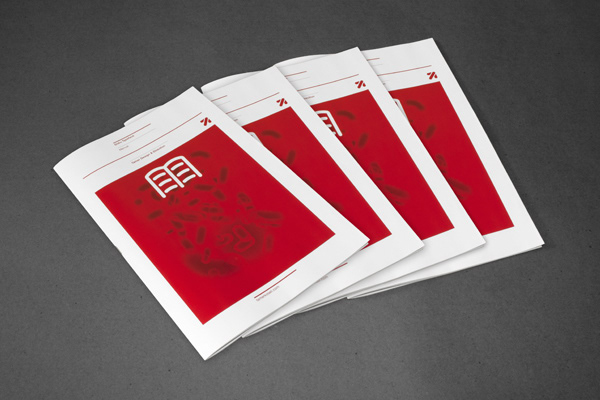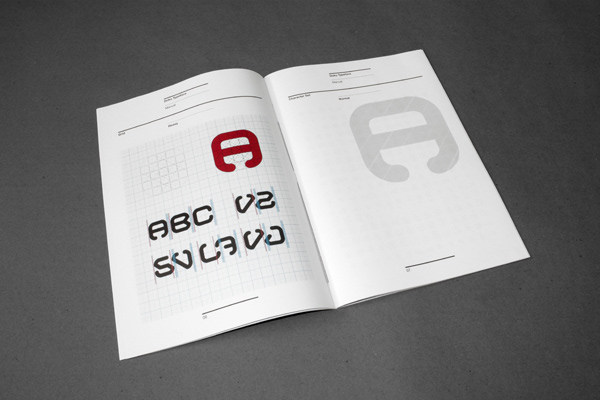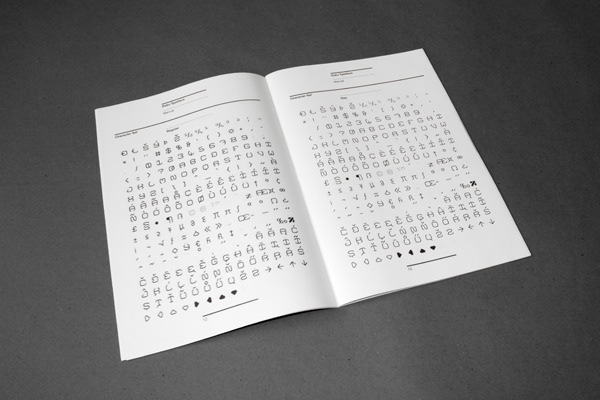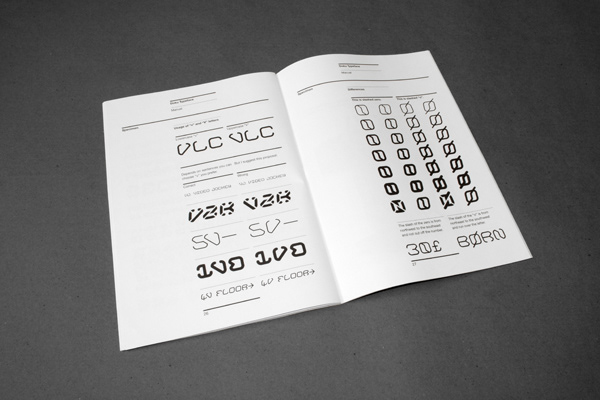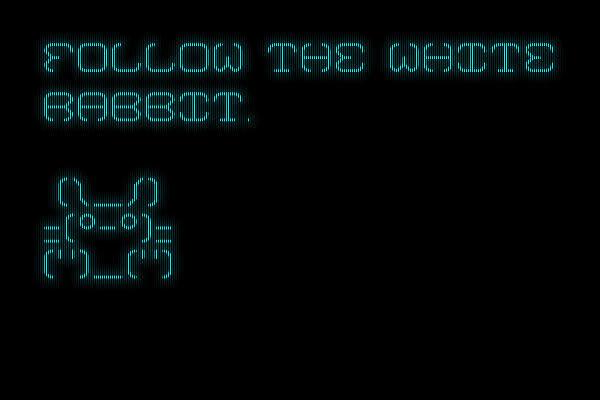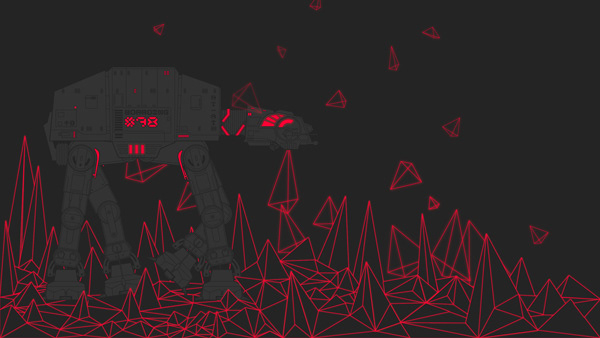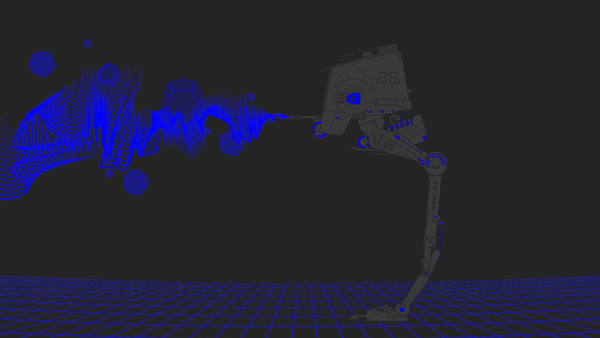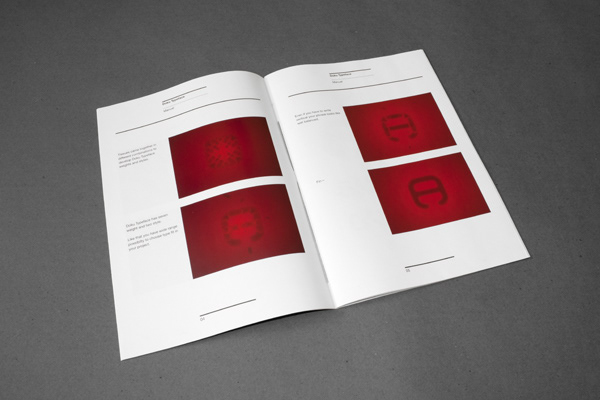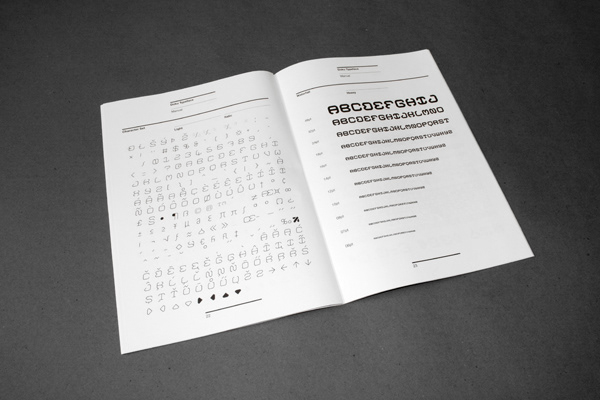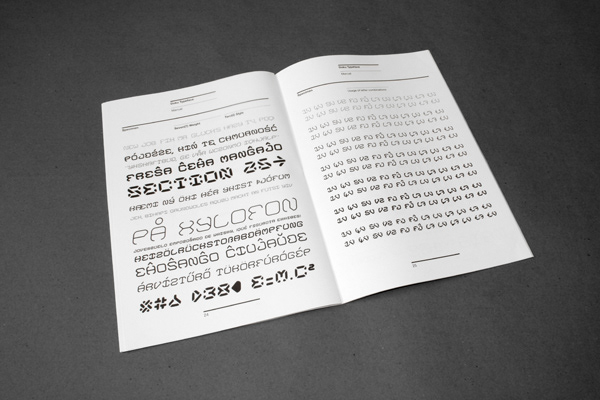
I have designed this experimental typeface called "DOKU" in 2011. I was released it on YWFT but then I removed it. So if you want to use it on a project please e-mail me.
Doku is a monospaced-rounded, experimental display typeface, inspired from an organism.
"Doku" means "tissue" in Turkish.